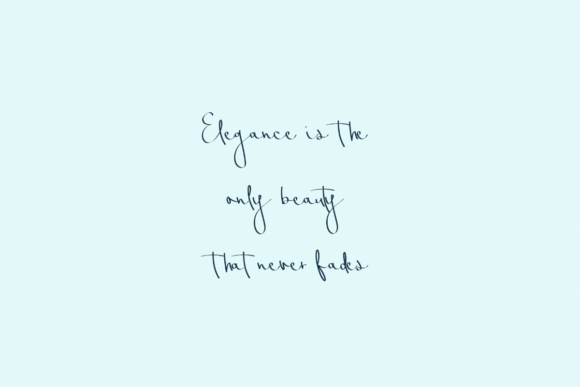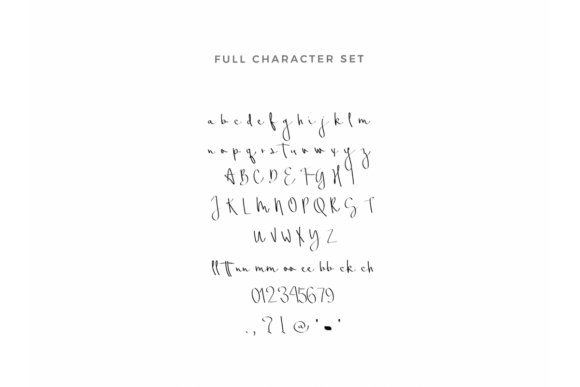
Introduction to Hollymare Font
Introducing Hollymare.
This one-of-a-kind, handwritten typeface exudes a beautiful charm Imbued with warmth and authenticity, Hollymare lends a delightful twist to the traditional script font, capturing the essence of free-handered elegance, perfect for infusing a touch of loveliness into your designs.